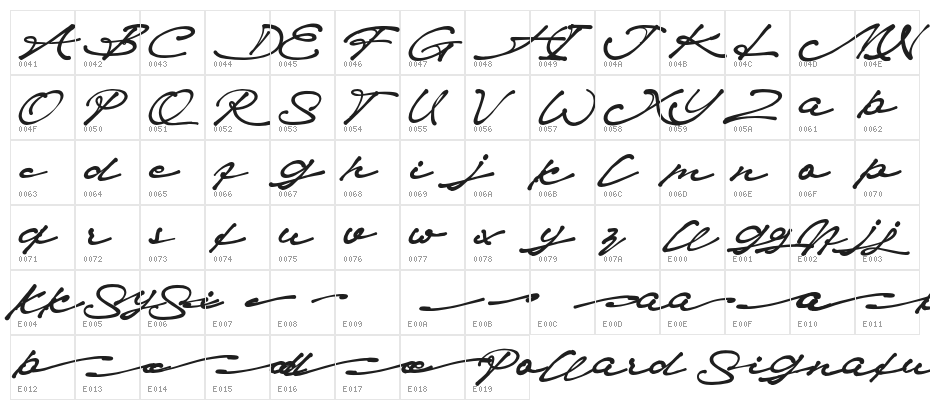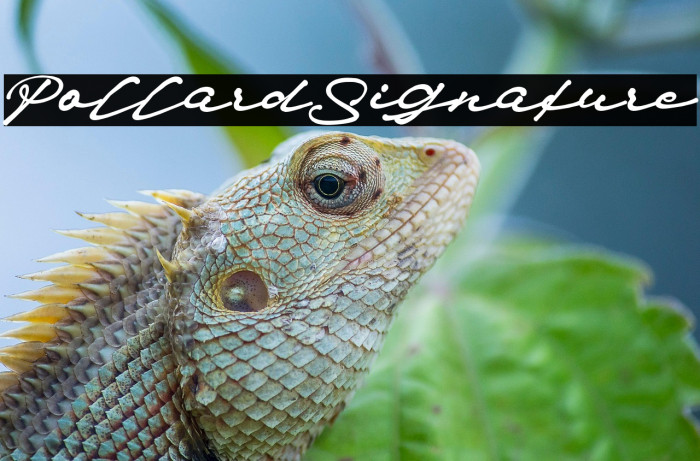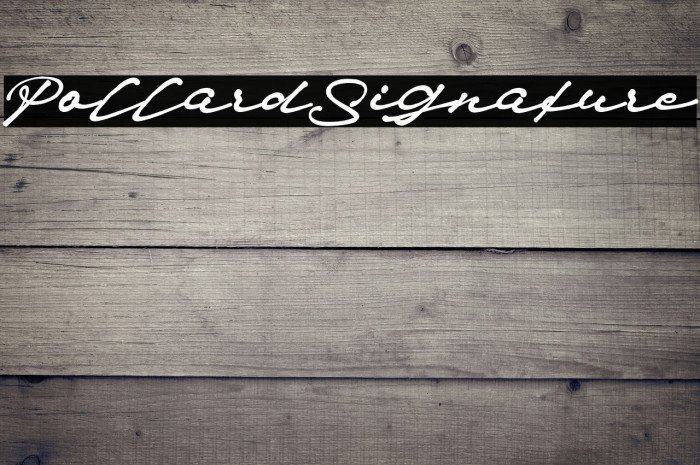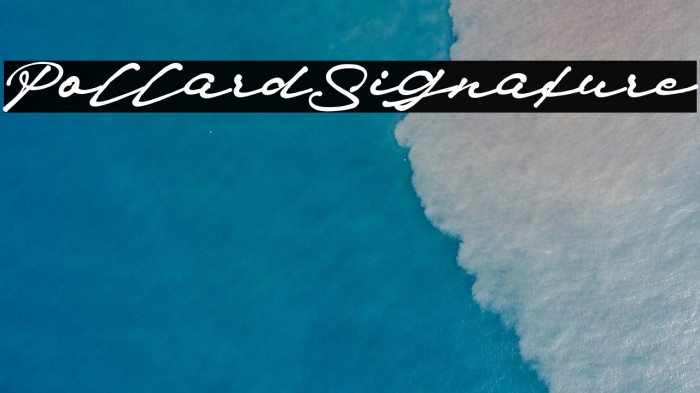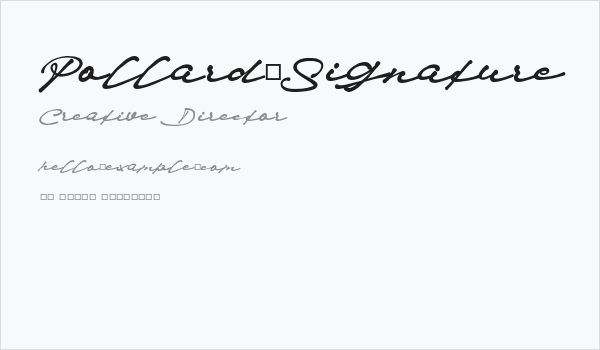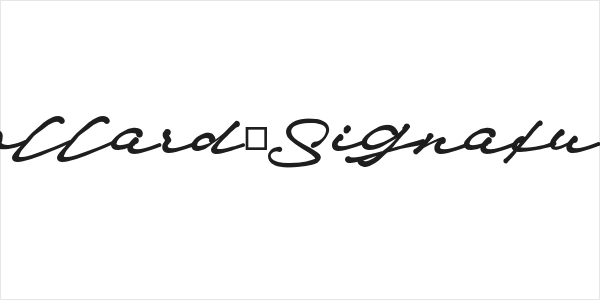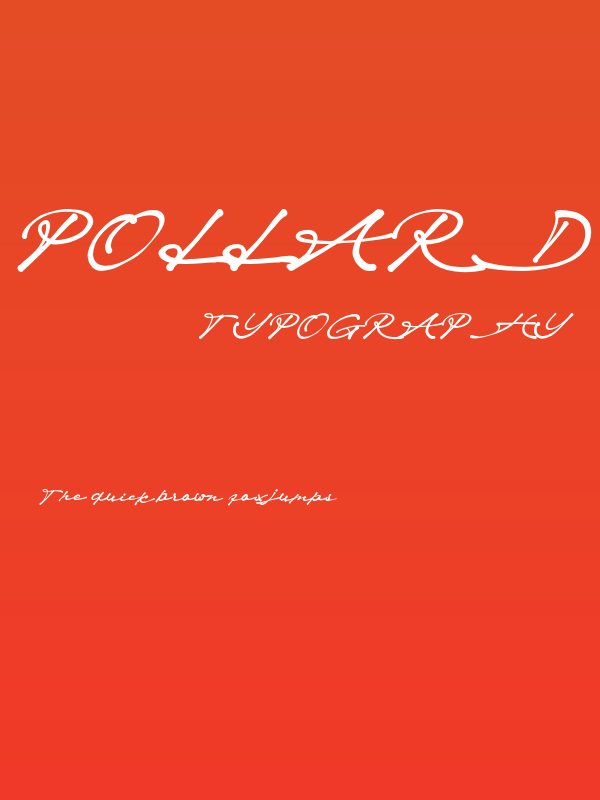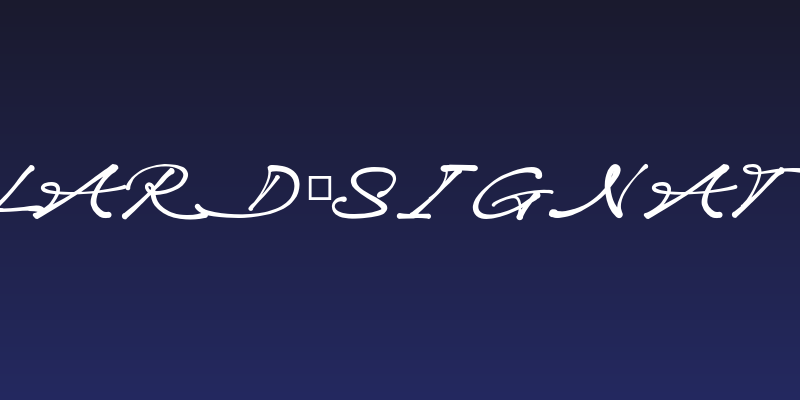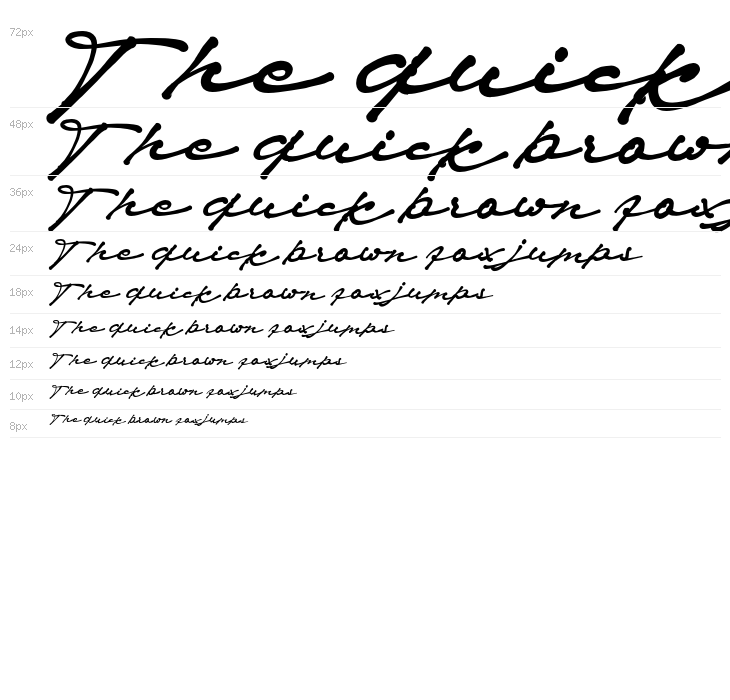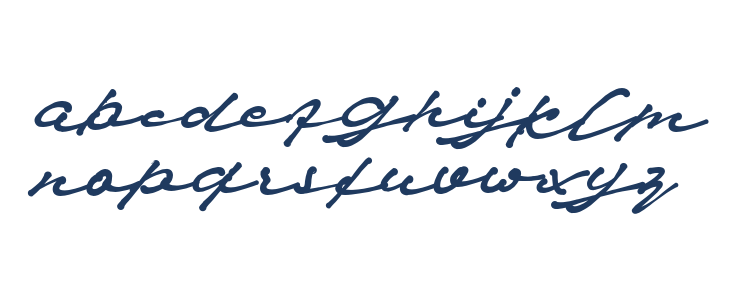
Pollard_Signature Font
Pollard_Signature Description
This font exudes a classic, handwritten style with a flowing, cursive script that mimics the elegance of a personal signature. The characters are interconnected, creating a seamless and fluid appearance. The uppercase letters maintain a consistent height, while the lowercase letters exhibit a slight slant, enhancing the natural handwriting feel. The strokes vary in thickness, adding a dynamic and lively touch to the text. This font is perfect for adding a personal, sophisticated touch to any project.
| Overall Style | Classic |
| Use Case | Logos, Invitations, Personal Branding |
| Proposed Projects | Ideal for wedding invitations, personal branding, greeting cards, and elegant stationery. |